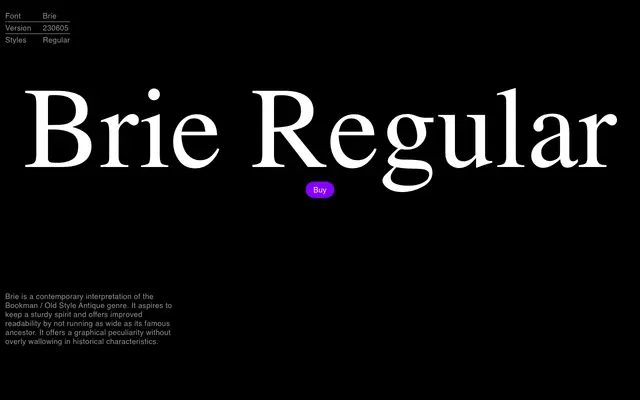
Brie
EPI · 2023
A single-weight contemporary take on the Bookman / Old Style Antique genre, drawing in the style's sturdy character while running narrower than its historical models.
Drawn as a contemporary interpretation of the Bookman and Old Style Antique tradition, Brie reins in the genre's characteristically wide proportions to improve readability and economy of space. It retains a sturdy, grounded presence while keeping historical mannerisms in check, aiming for something graphically distinctive without nostalgia. Available in a single Regular weight with Latin extended coverage.
Explicitly positioned within the Bookman / Old Style Antique genre, sharing the sturdy bracketed serifs and high-contrast rhythm of that tradition while being narrower than the classic model.